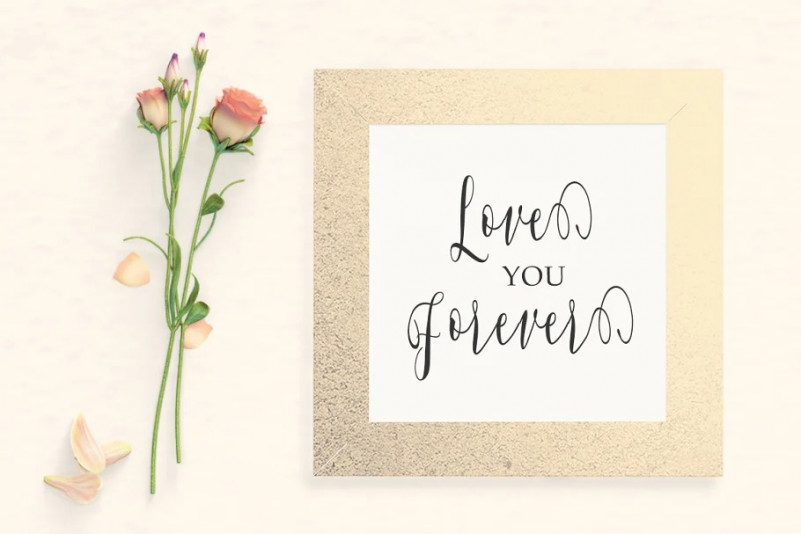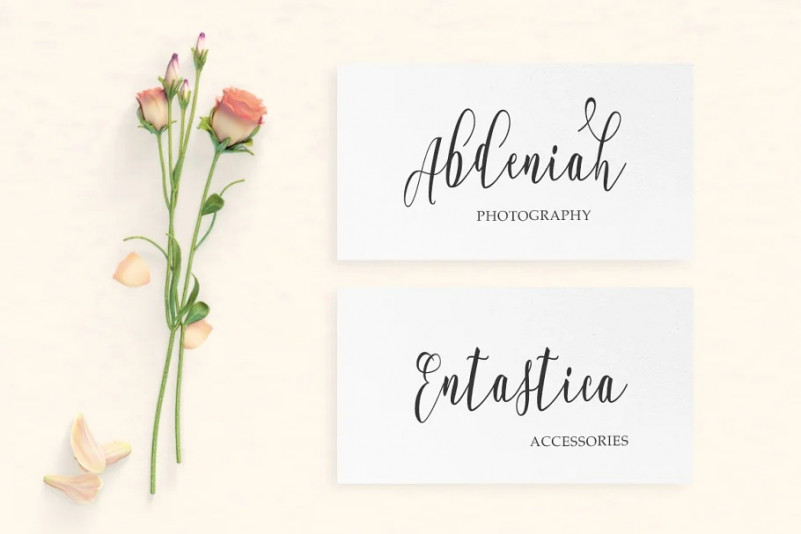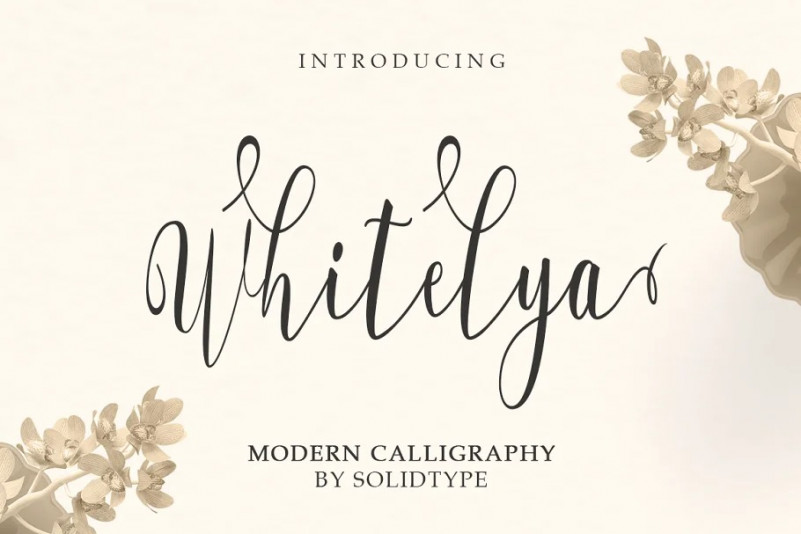
Whitelya Font
Whitelya Script Font is modern script font that features a varying baseline, smooth, classic and elegant touch. It comes with a handy set of opentype stylistic, use the beautiful ligatures, alternates and swashes. You need a program that supports OpenType features such as Adobe Illustrator CS, Adobe Photoshop CC, Adobe Indesign, Microsoft Word 2010. It is perfect for logo, greetings, branding, quotes, prints, invitations and crafting. All lowercase letters include alternates, beginning & end swashes, that makes the font look fabulous!